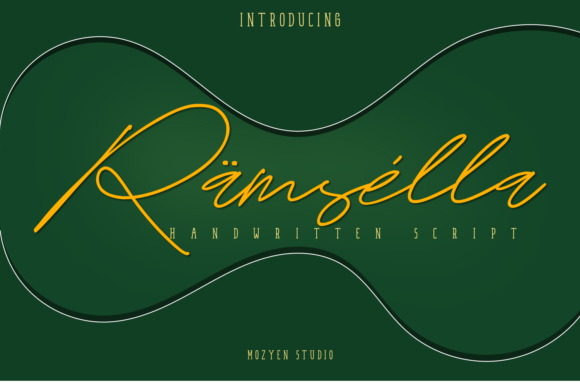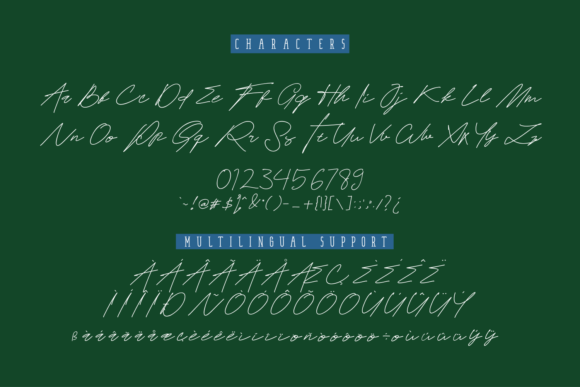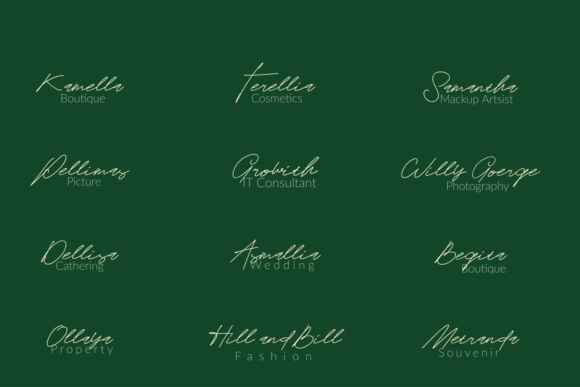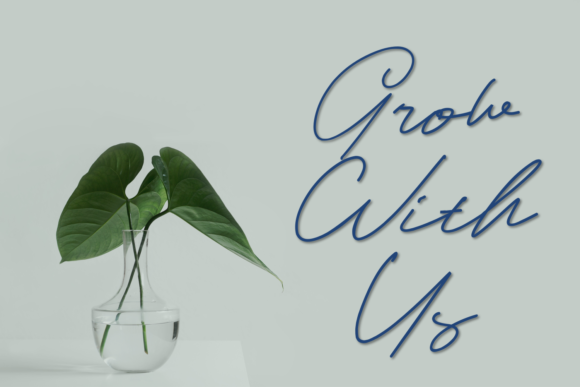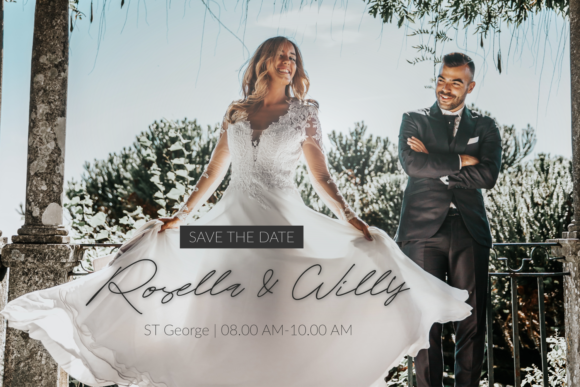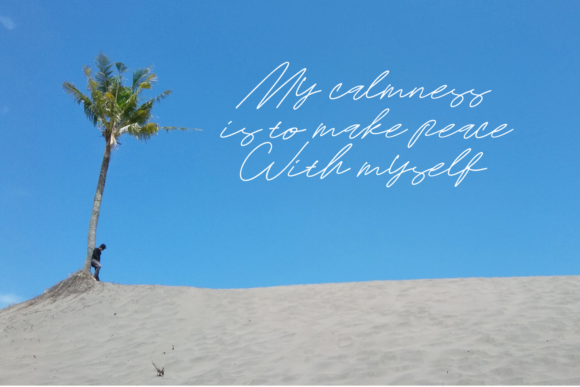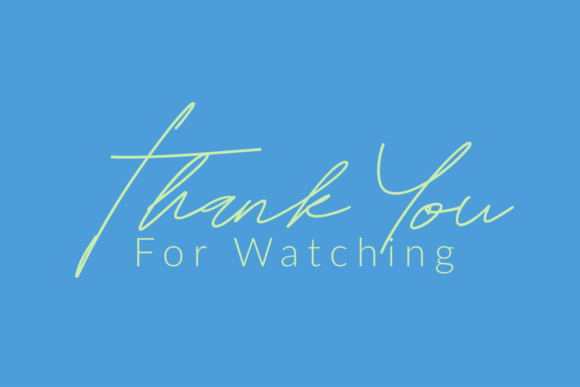
Ramsella Font
About Ramsella Font
Ramsella is an extraordinary and elegantly drawn script font that will turn any design project into a true standout.